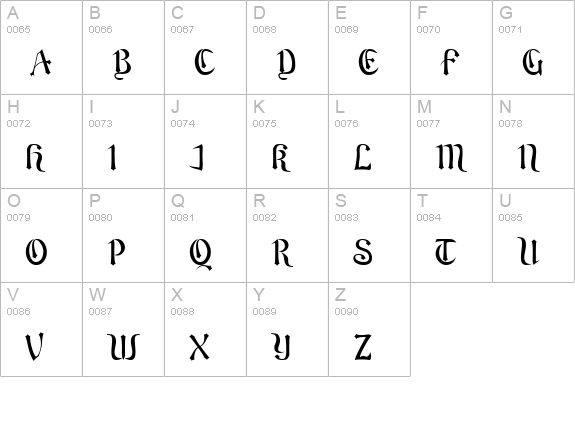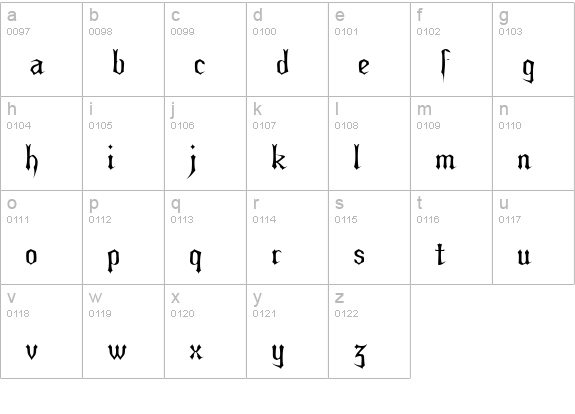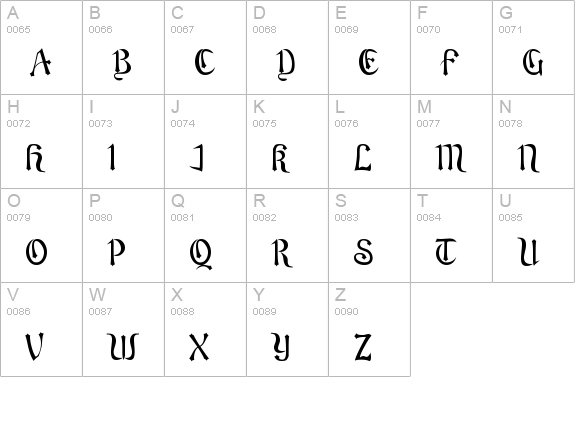
Eldroon Font Details
The Eldroon font is a versatile and elegant typeface that exudes sophistication and modernity. With its sleek lines and balanced letterforms, Eldroon is perfect for a wide range of design projects, from branding to editorial layouts. This font combines classic typography with a contemporary twist, making it a timeless choice for any designer looking to elevate their work. What's even better is that Eldroon is available for free download at FontsMarket.com! This means that you can easily add this stunning font to your collection without any cost. Whether you're a seasoned professional or just starting out in the world of design, Eldroon is a valuable asset that will enhance your projects and help you stand out from the crowd. Download Eldroon today and bring a touch of sophistication to your designs!